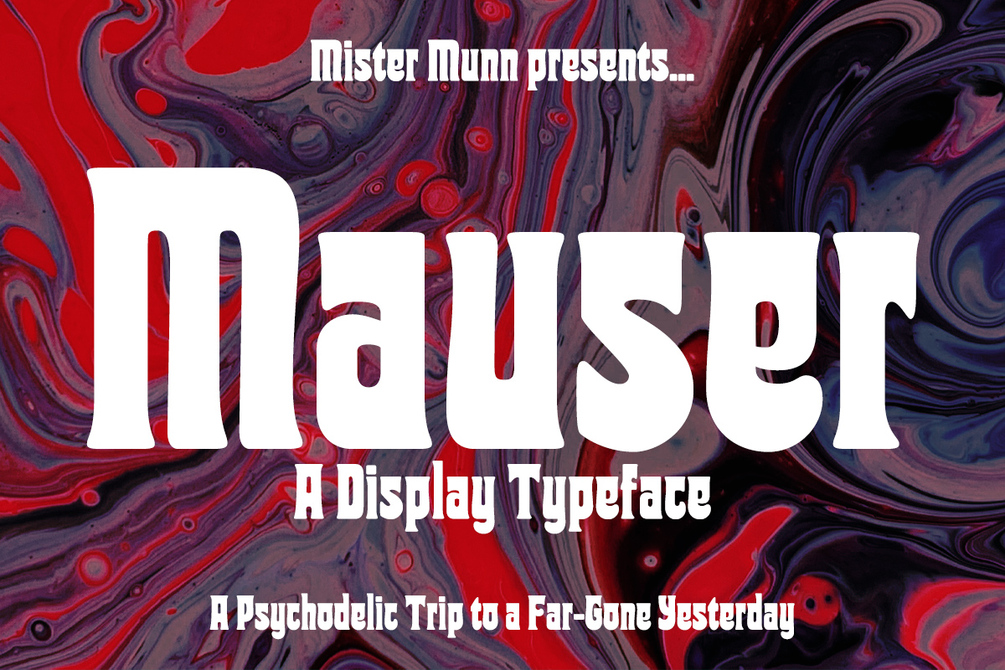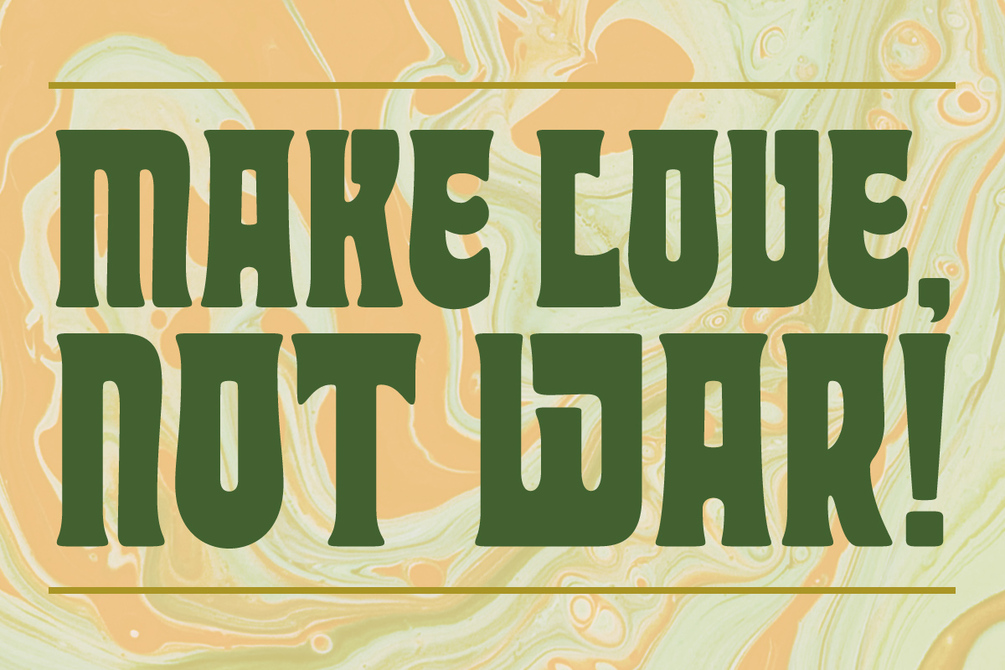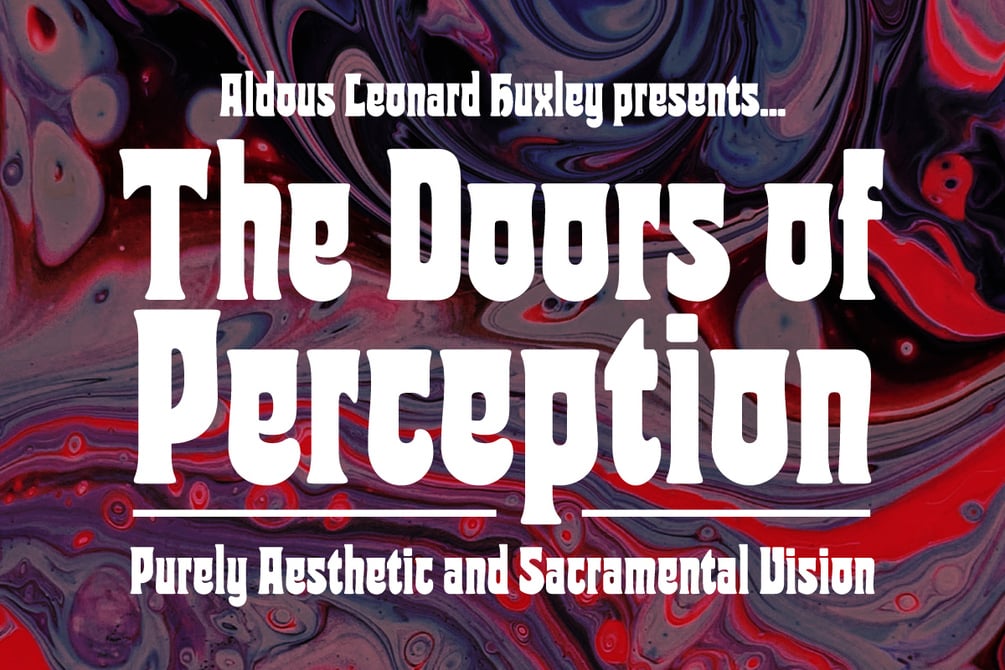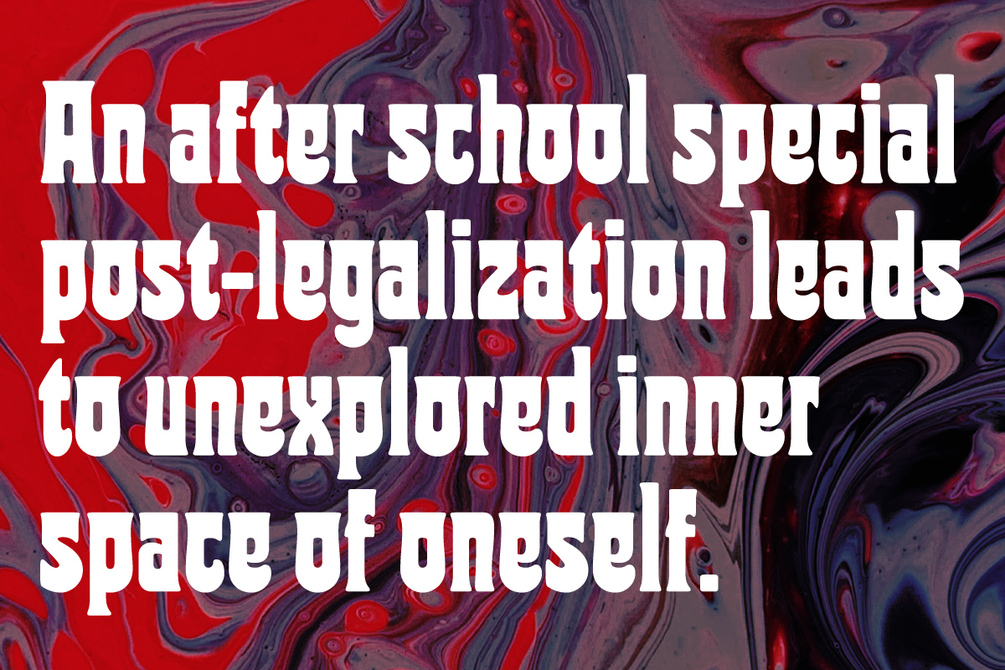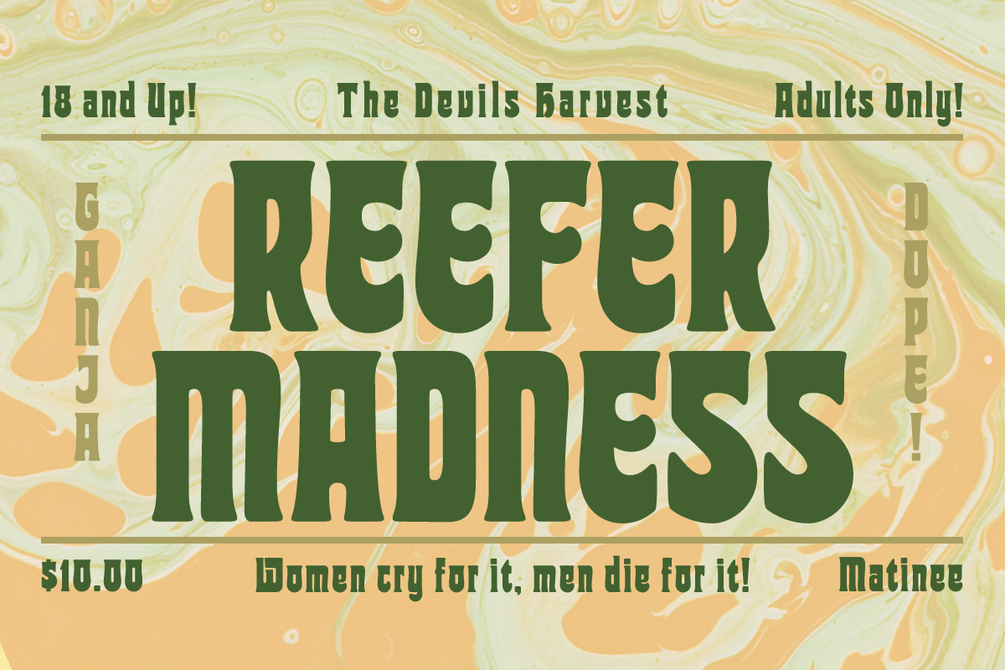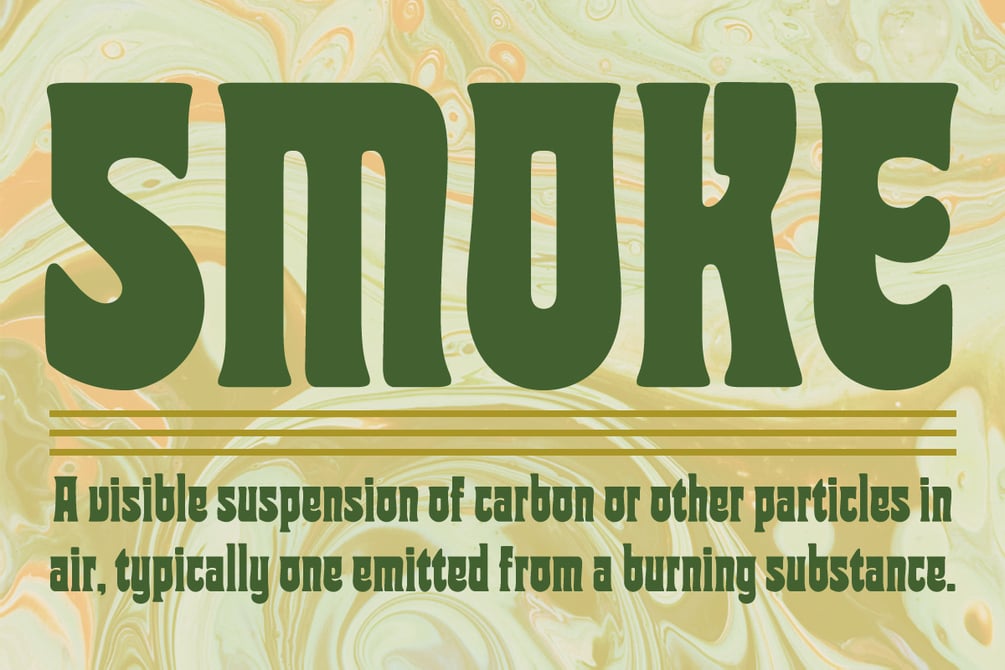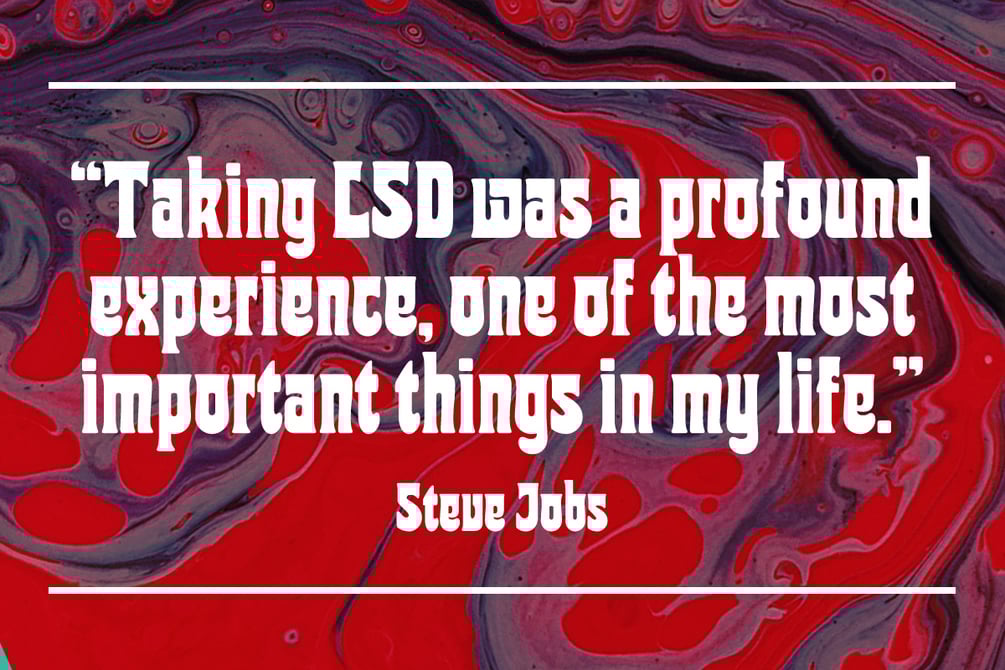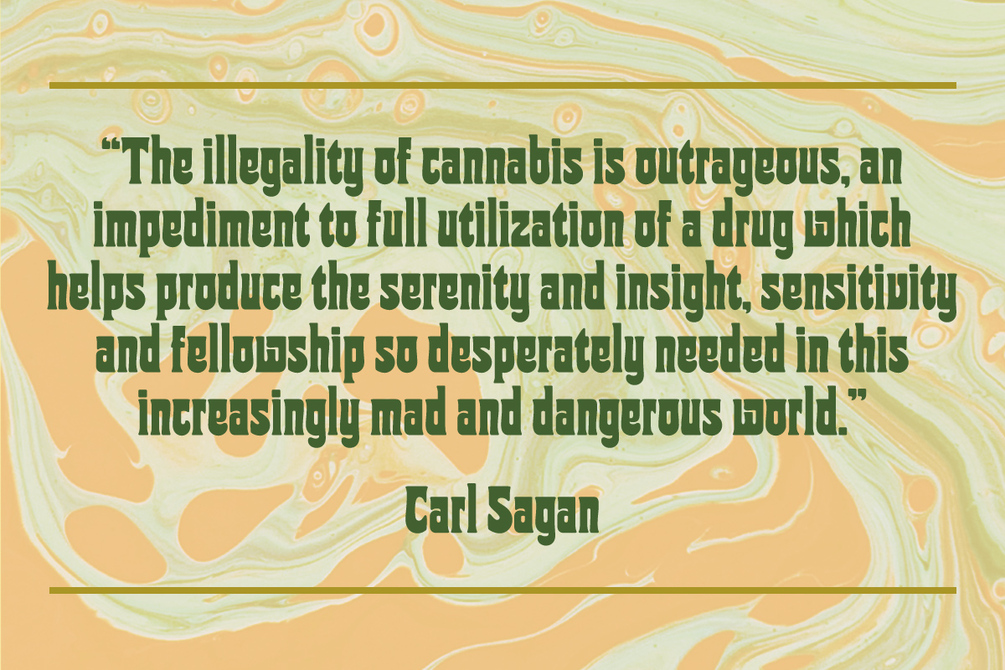
Mauser Typeface
Mauser is a display typeface ready for your next far-out experience. Historically rooted in art nouveau and widely use by sub-cultures of the 1960's, Mauser is perfect for all your mind-expanding type needs. Suitable for headlines, identities, and short texts, Mauser is no burnout when it comes to bringing 'good vibes' to your words.
Mauser has full language support with a vast library of diacritics, able to say, "Hey" to any and everyone in the Latin language with ease.